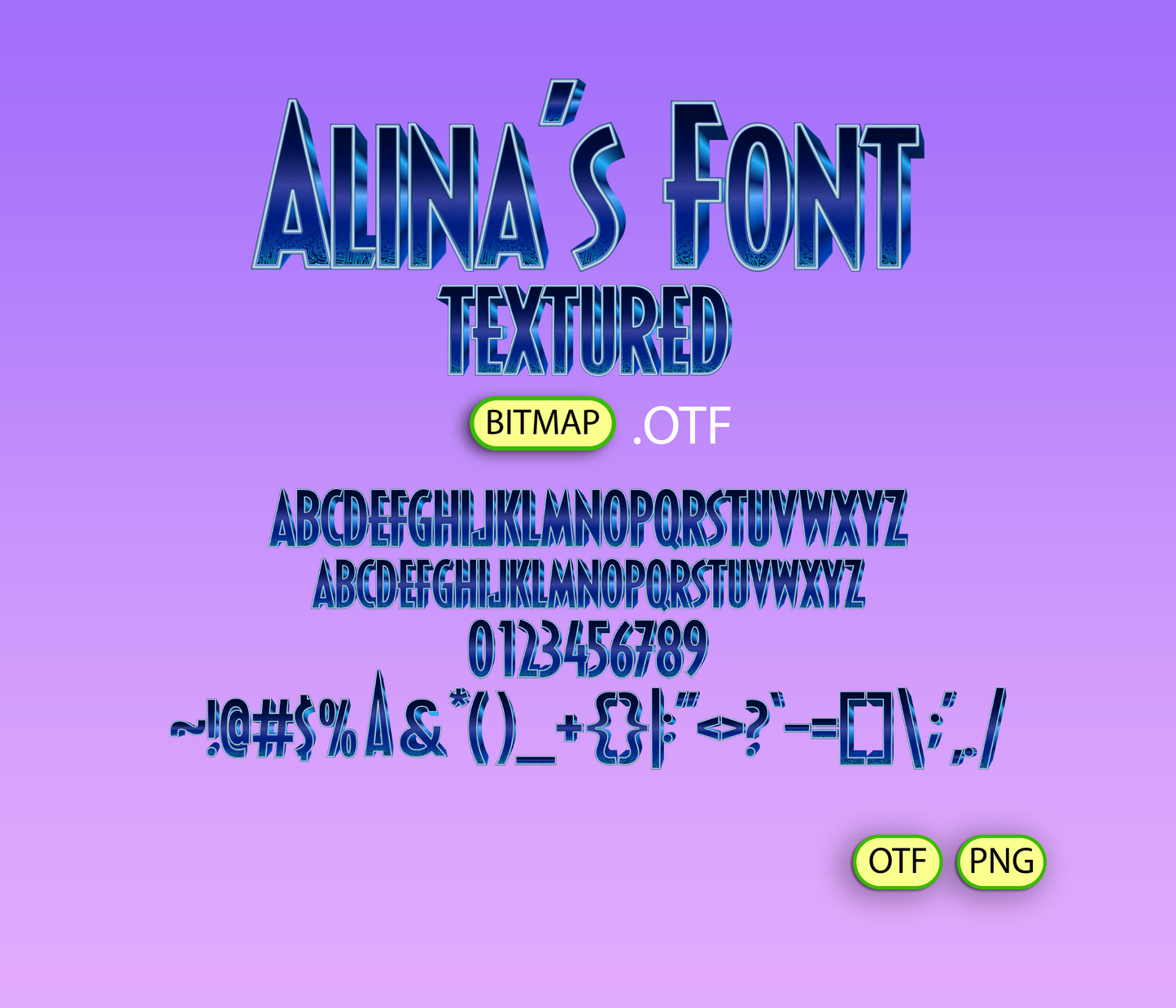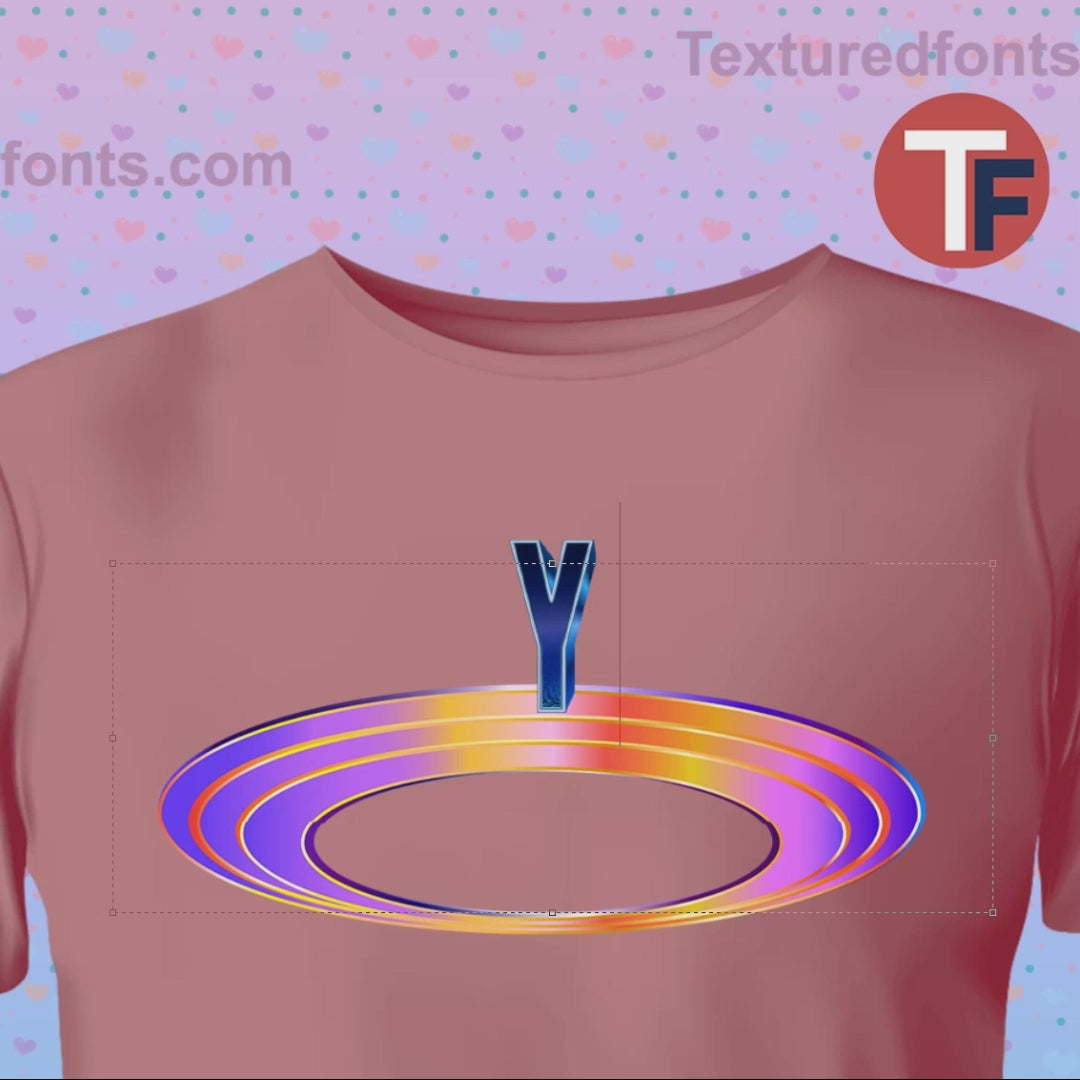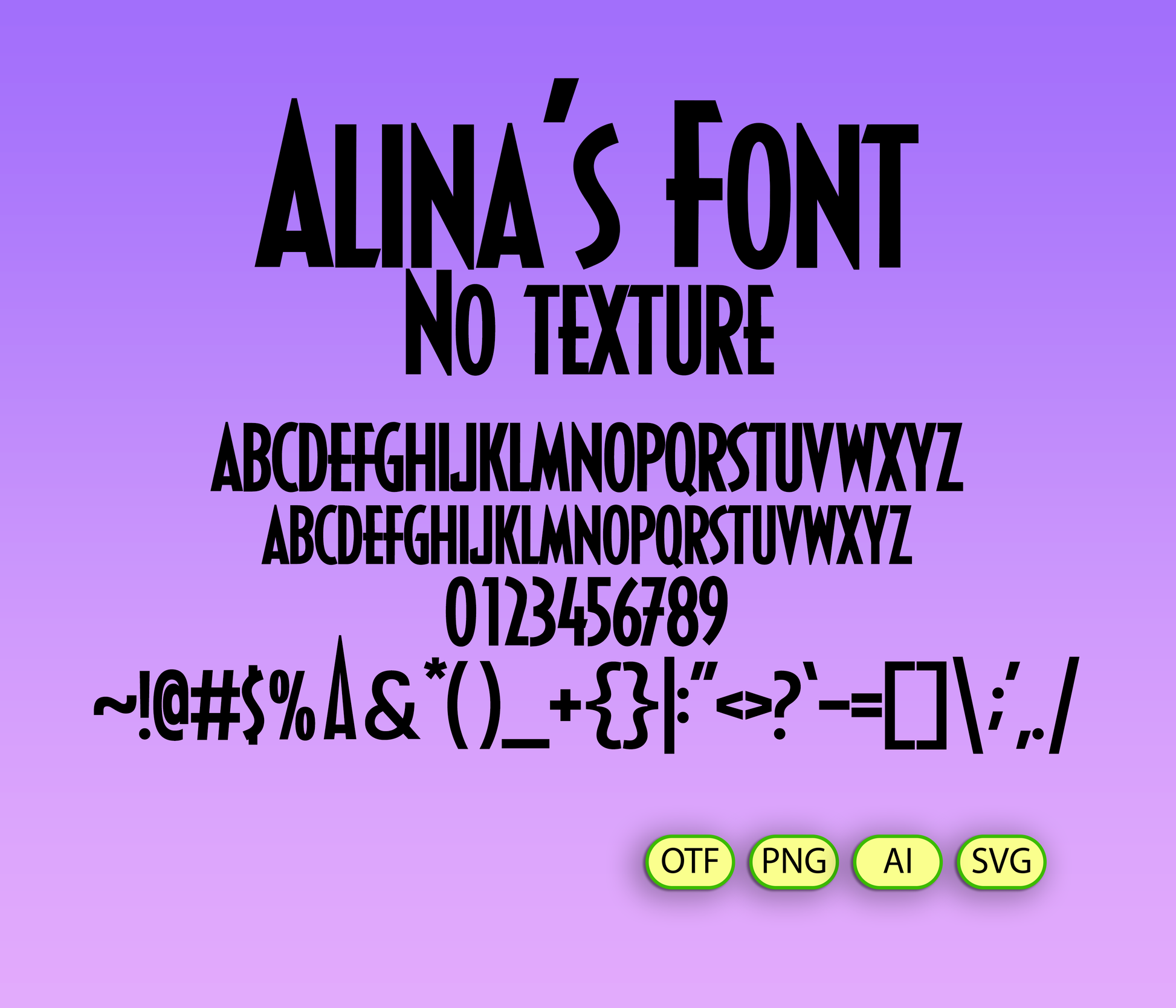
Animated Sports Font Textured
Dunk Into Creativity with the Animated Sports Font
Capture the excitement and high-flying adventure of animated sports with our specially designed font, inspired by the vibrant and energetic spirit of a beloved film. Perfect for fans, event organizers, and designers looking to infuse their projects with a dynamic, sporty vibe, this font embodies the thrilling essence of basketball and the animated fun of iconic characters. Whether you're creating event invitations, designing themed merchandise, or crafting digital content, our Animated Sports font ensures your projects resonate with the action-packed and playful atmosphere of the movie.
Our Animated Sports-inspired font features bold, rounded characters with a dynamic, sporty feel that reflects the energetic and fun nature of the film. This versatile font is ideal for a variety of applications:
- Event Promotions: Perfect for creating exciting invitations, posters, and banners for movie screenings, sports events, or themed parties.
- Merchandise Design: Ideal for designing t-shirts, posters, and accessories that capture the essence of animated sports.
- Digital Media: Enhance websites, blogs, and social media content with eye-catching headers and graphics.
- Educational Materials: Use in presentations, worksheets, and educational content focused on sports, teamwork, or animation.
- Personal Projects: Add a playful touch to scrapbooking, DIY crafts, or home decor inspired by the intergalactic basketball game.
To ensure maximum usability and flexibility, our Animated Sports-inspired font includes both textured and non-textured variants. The non-textured version is particularly beneficial, ensuring compatibility with all types of software, including Canva. This feature allows users of all skill levels to seamlessly incorporate the font into their designs, enhancing accessibility and ease of use across various digital and print platforms.
Our Animated Sports font not only pays tribute to the film but also empowers you to infuse your designs with the energy and fun of the animated basketball world. Whether you’re crafting promotional materials, designing unique merchandise, or adding a touch of sporty excitement to personal projects, this font allows you to communicate with the vibrant and playful spirit of animated sports. Ready to elevate your creative projects to new heights? This font is your key to scoring big with style and impact.